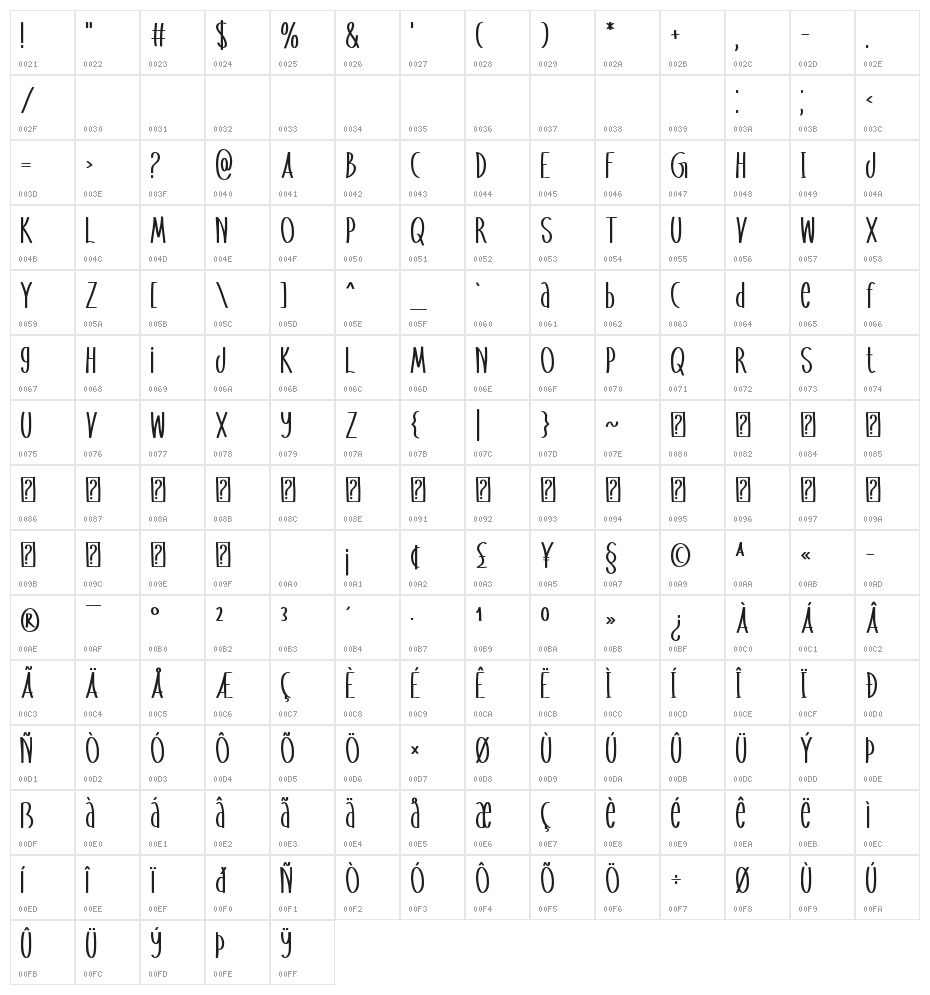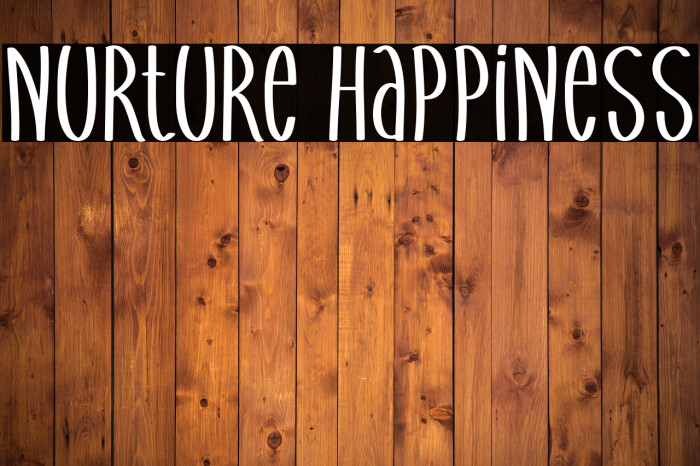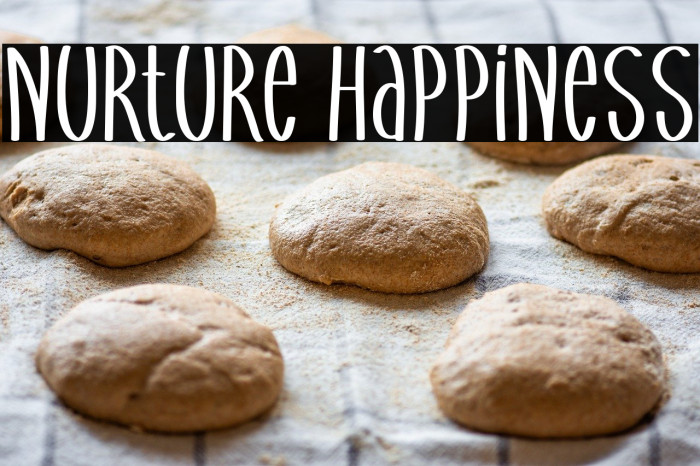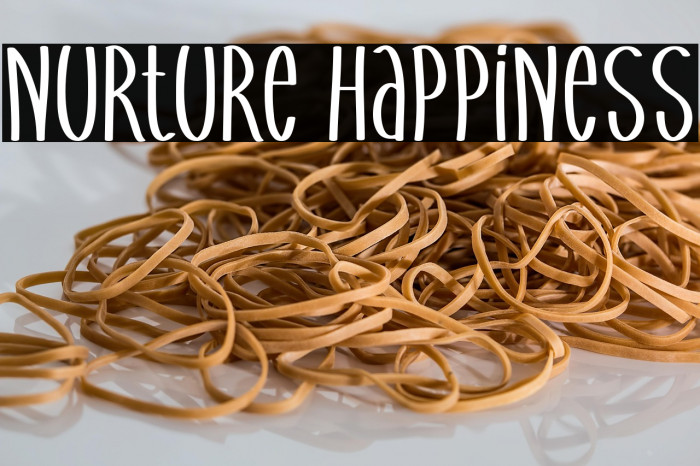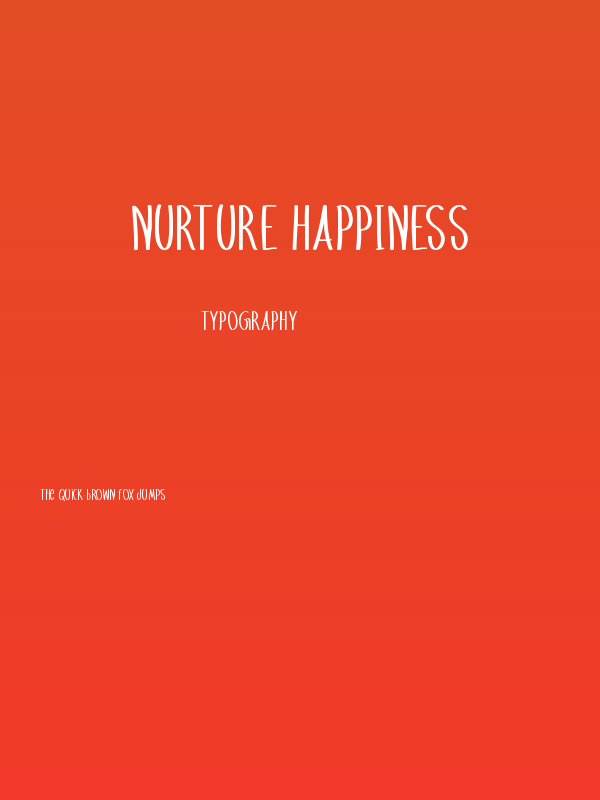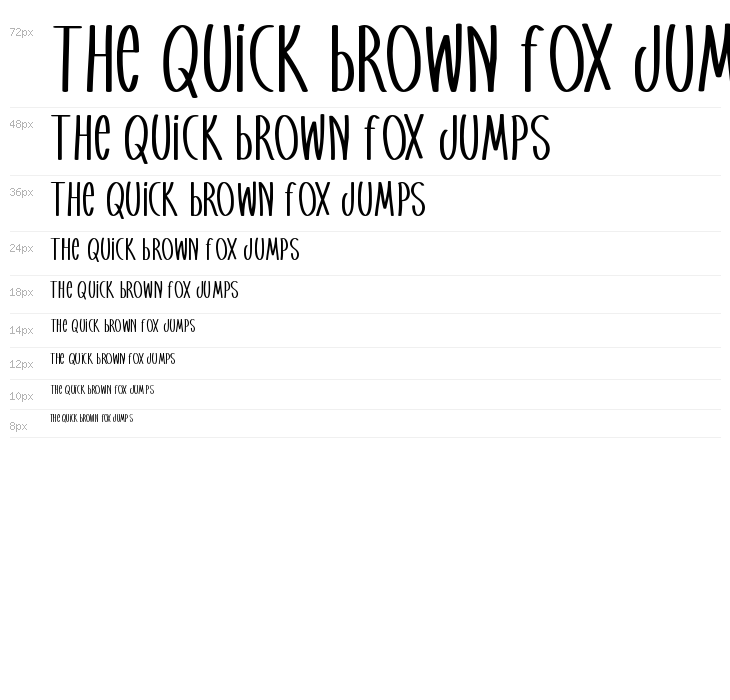
Nurture Happiness Font
Nurture Happiness Description
This font features a playful and whimsical style with tall, narrow characters that have a hand-drawn appearance. The letters exhibit a slight slant, adding to their dynamic and lively feel. The strokes are consistent in width, giving the font a uniform look, while the rounded edges soften the overall appearance. The uppercase and lowercase letters maintain a cohesive design, with unique flourishes on certain characters like 'G' and 'Q'. The numerals and special characters are crafted to match the playful theme, making this font suitable for creative and informal applications.
| Proposed Projects | Ideal for children's books, greeting cards, playful branding, and creative posters. |